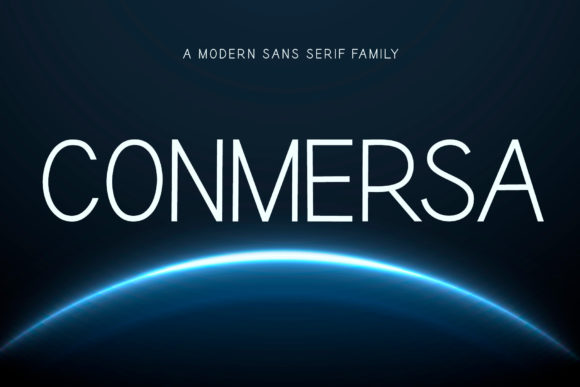
Dive into the world of Conmersa, a captivating sans serif font meticulously crafted to elevate your designs with its modern and minimalist charm. Experience the seamless harmony between readability and aesthetics as Conmersa effortlessly complements your creative endeavors.
Imagine your research papers adorned with the sophistication of Conmersa, where every word dances gracefully upon the page, inviting readers to delve into your scholarly insights. Its clean lines and legible forms ensure a captivating reading experience, making complex ideas accessible and engaging.
But Conmersa's allure extends far beyond the realm of academia. Its versatility knows no bounds, making it an ideal choice for a myriad of projects. From sleek presentations that command attention to captivating social media posts that ignite conversations, Conmersa empowers your creativity to soar.
Join the countless designers and content creators who have succumbed to Conmersa's allure. Let its timeless elegance elevate your designs, captivate your audience, and leave an unforgettable impression. Embrace the power of Conmersa, and unlock a world of creative possibilities today!